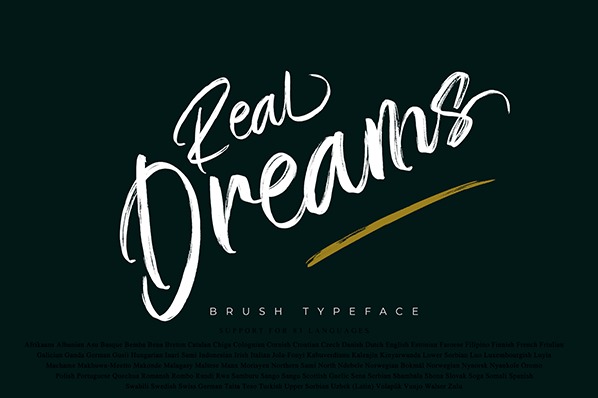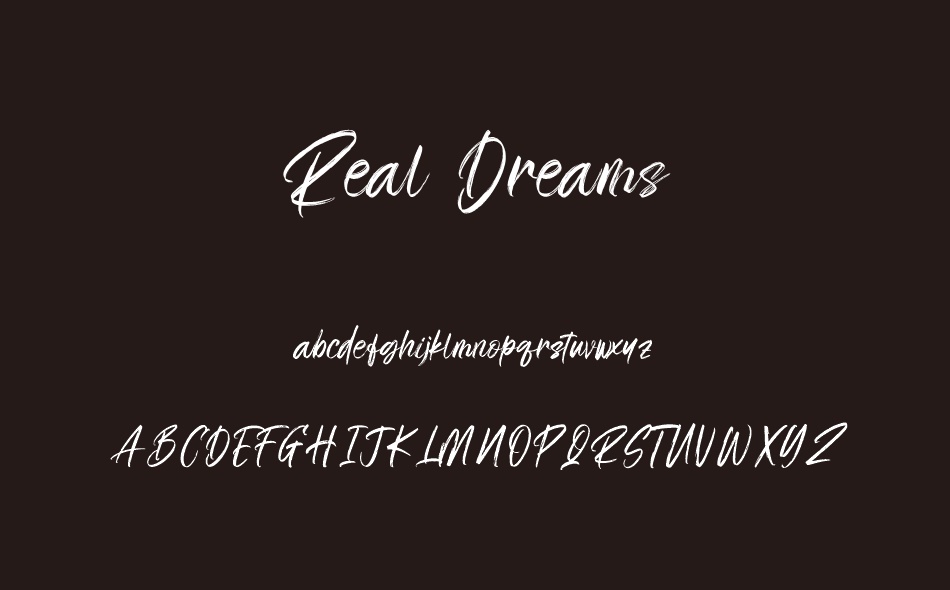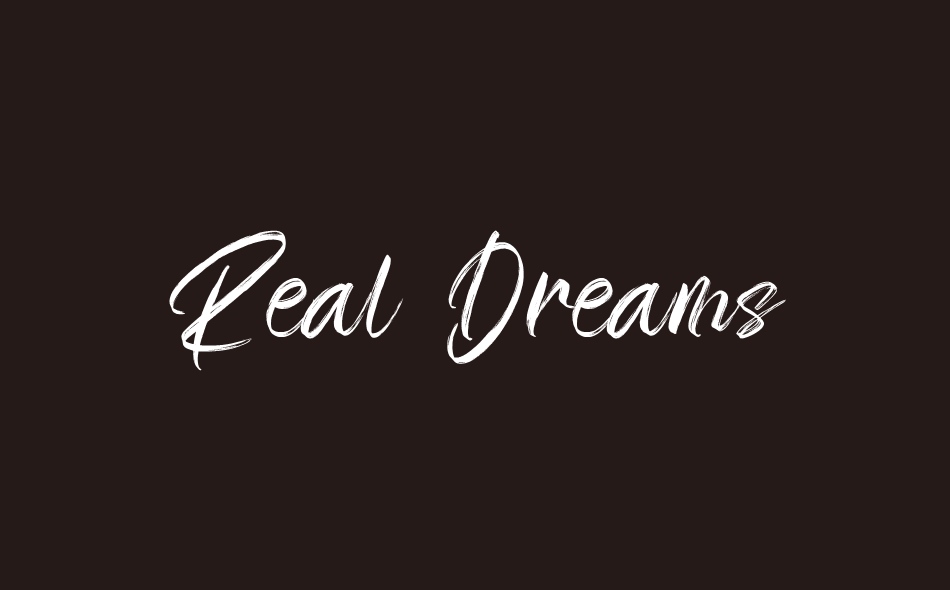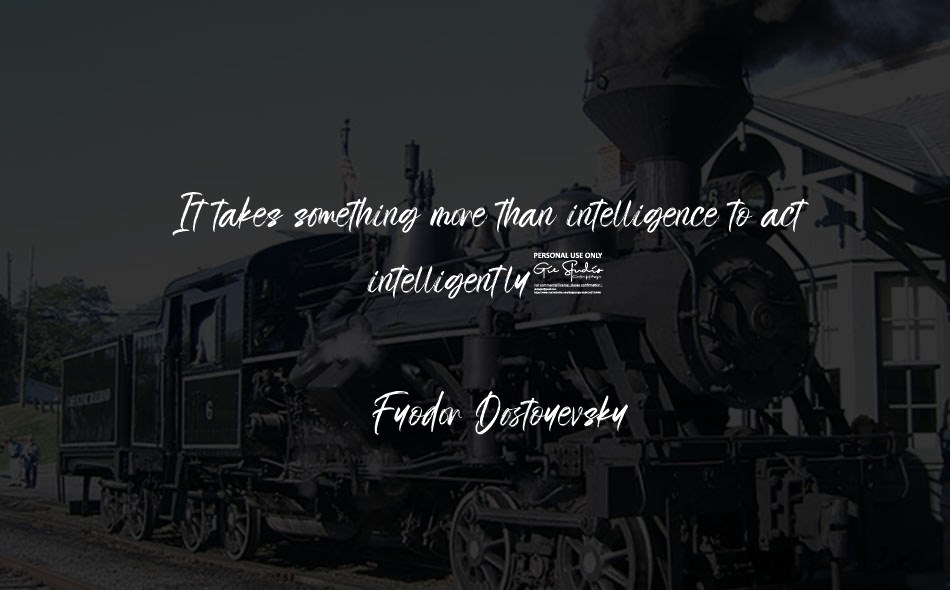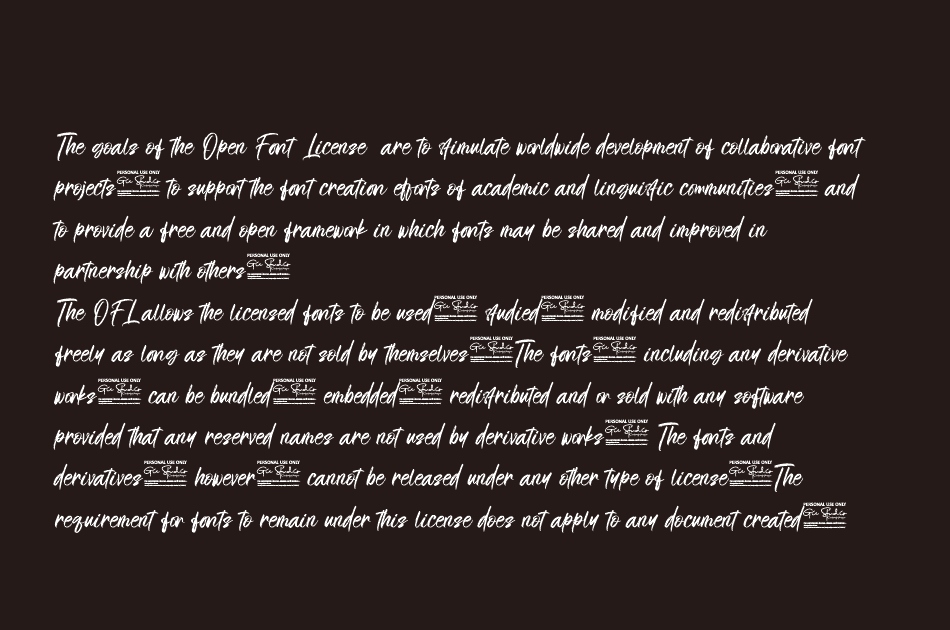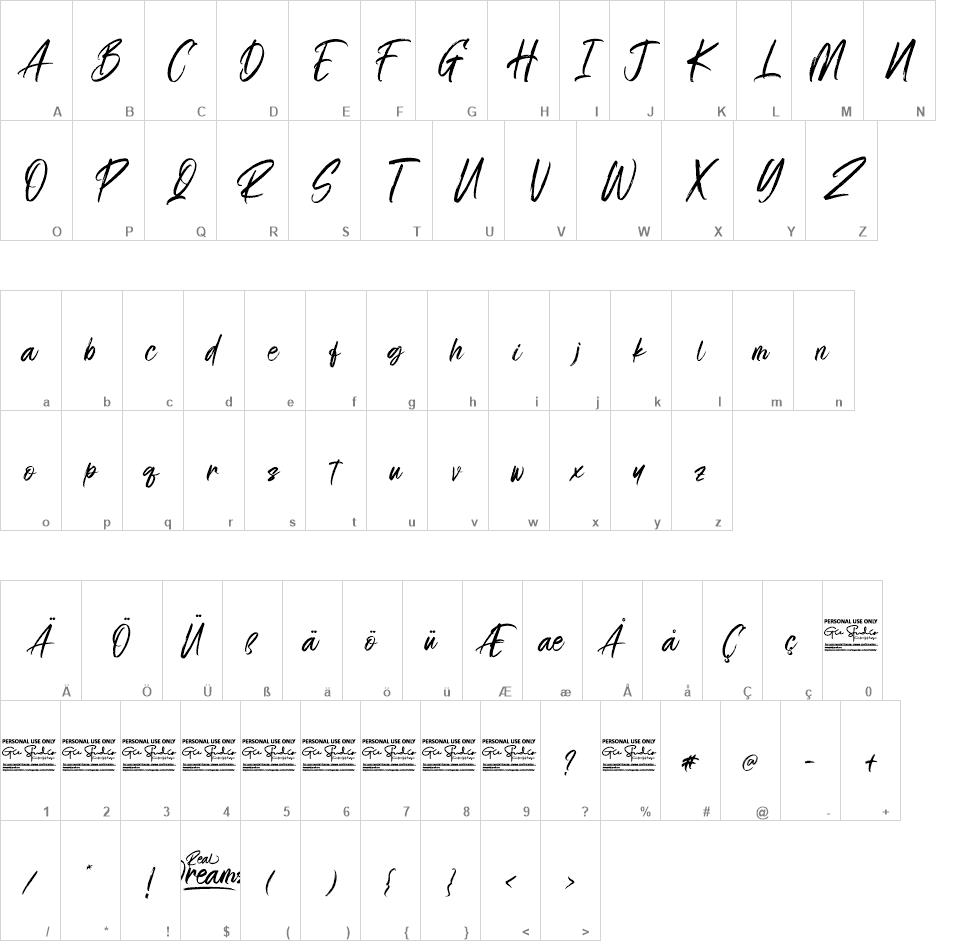
Real Dreams font
Real Dreams is a stylish and brushed handwritten font. This gentle font will look gorgeous on a variety of
design ideas. It will add a joyful and romantic touch to each of your projects!
Featured :
• Accents (Multilingual characters)
• Numerals and Punctuation (OpenType Standard)
• Special underline
• Complete with sweet Uppercase, Lowercase, Numerals & punctuation.
• Complete with sweet ligature & multilingual support 83 Country .